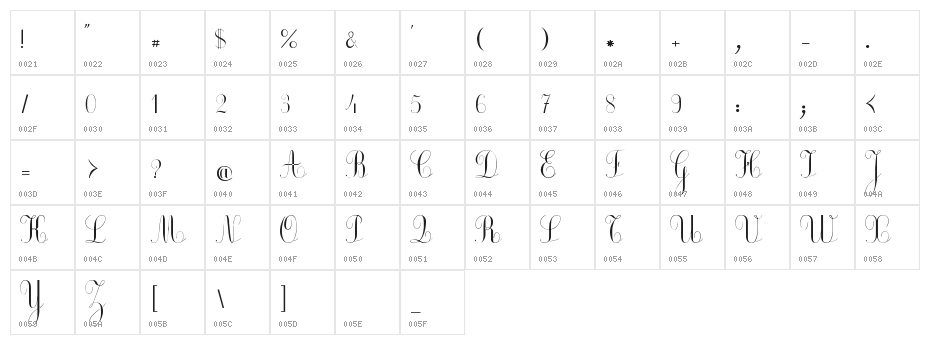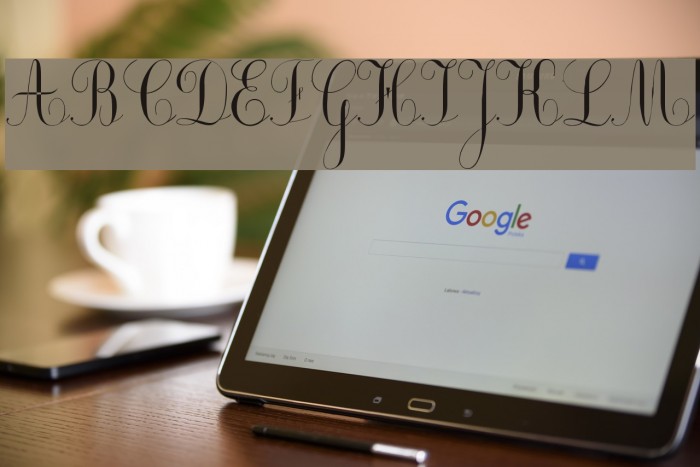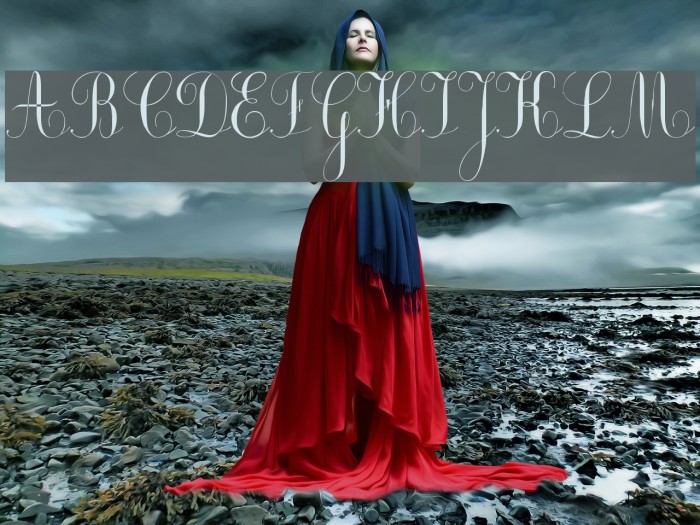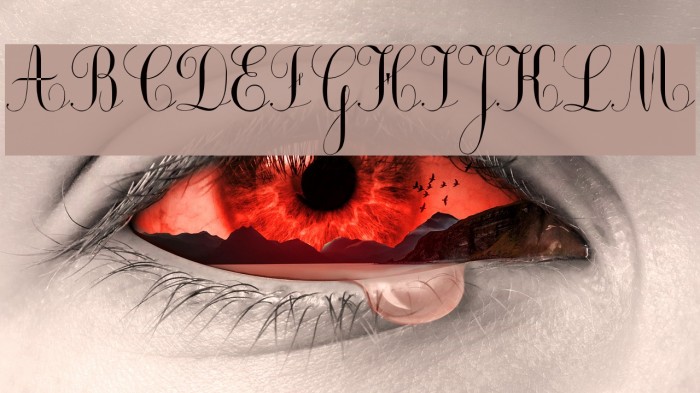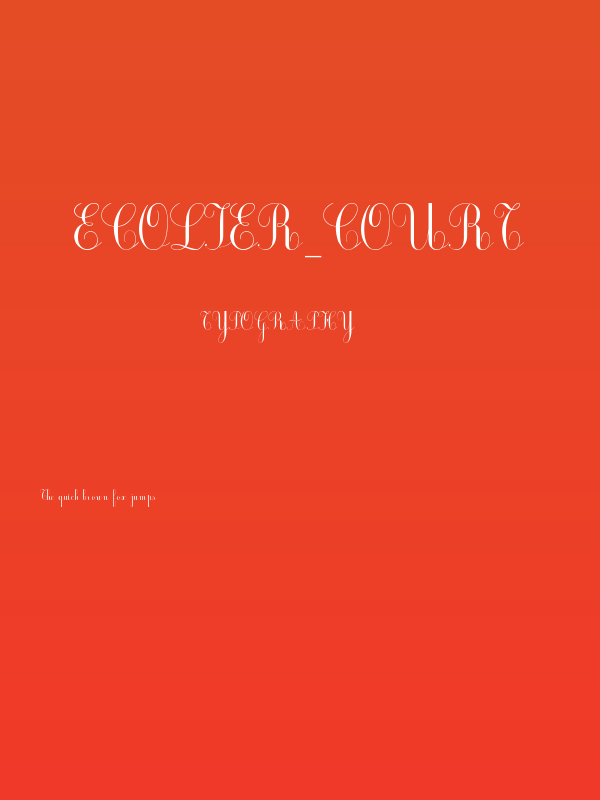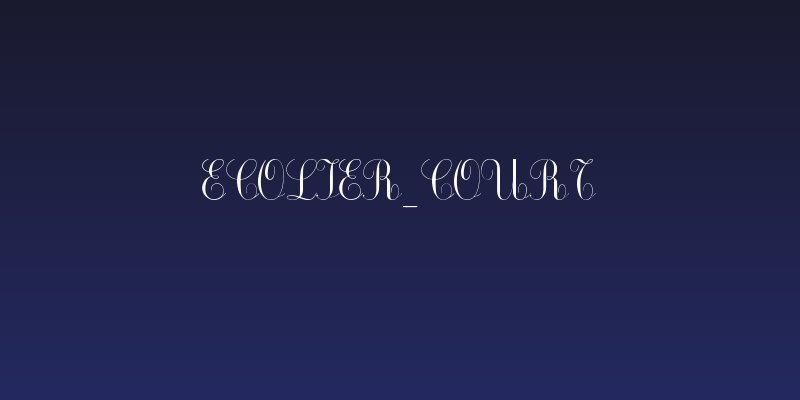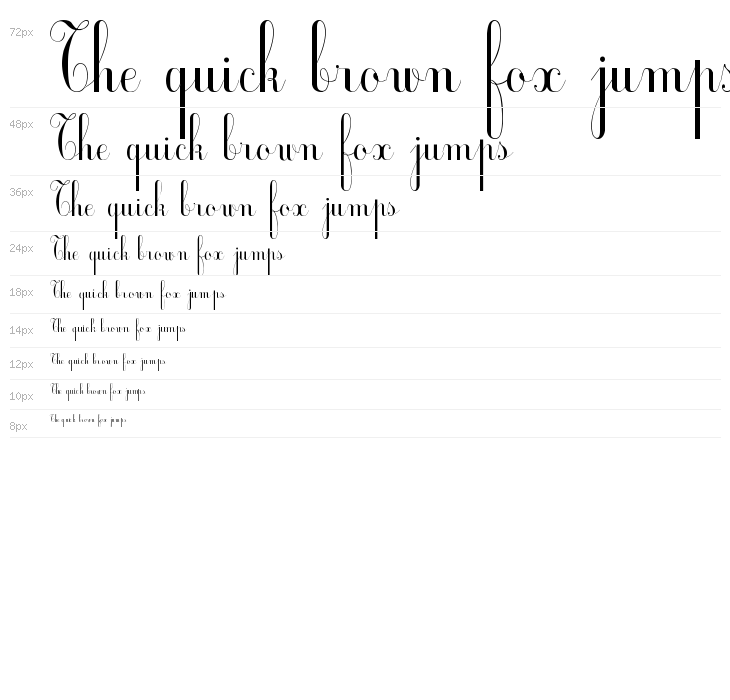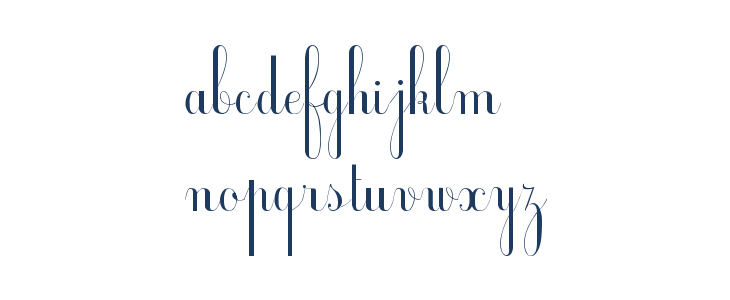
Ecolier_court Font
Ecolier_court Description
This font features an elegant and sophisticated script style with flowing, cursive letters. The uppercase letters are adorned with intricate loops and swirls, giving them a decorative and artistic flair. The lowercase letters maintain a more straightforward cursive style, yet still exhibit a graceful flow. The numerals are consistent with the overall aesthetic, featuring subtle curves and a refined appearance. Special characters are designed with the same attention to detail, ensuring a cohesive look across all elements. The font's delicate lines and ornamental features make it ideal for projects that require a touch of elegance and sophistication.